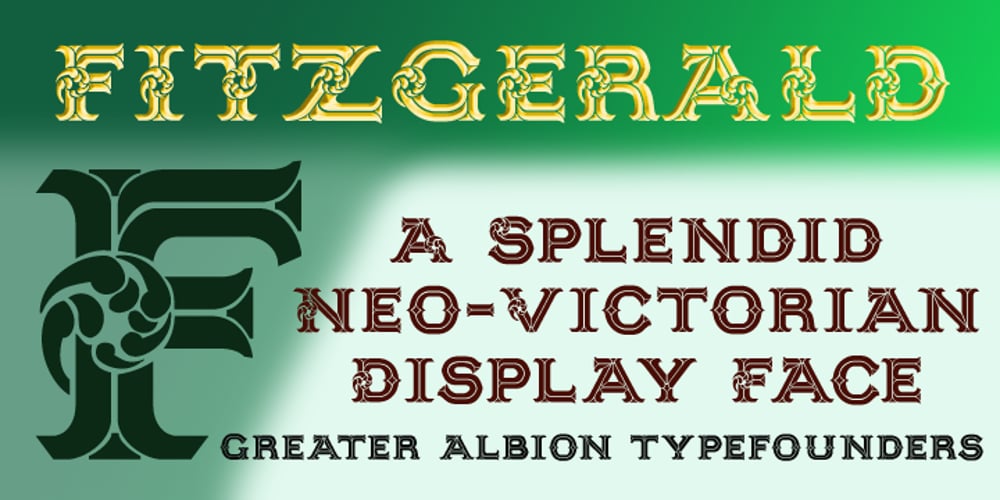
Fitzgerald Font Family was designed by Paul James Lloyd and published by Greater Albion Typefounders. Fitzgerald contains 1 styles and family package options. Fitzgerald was inspired by the carved and gilded lettering seen over the entrance of a bar in Dublin. The result is a lovely piece of neo-Victorian fun that brings back the joy of 19th century shop-signs and flamboyant design ethos. Fitzgerald is ideal for poster work and signage, or anywhere that you want to bring back the joy of high Victorian design ethos.